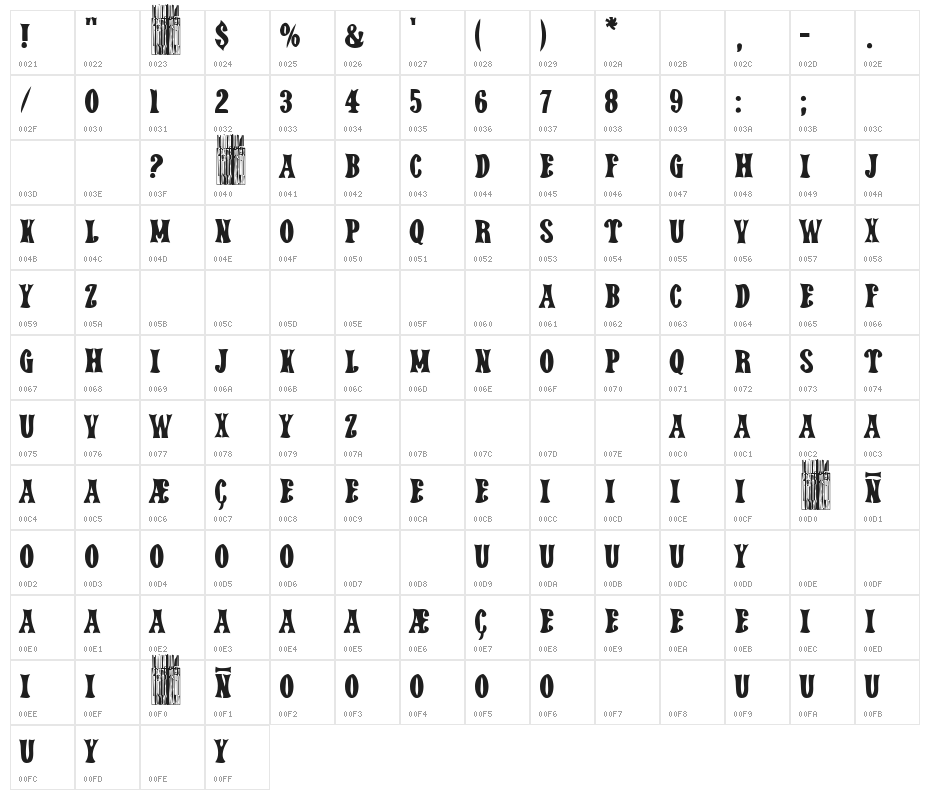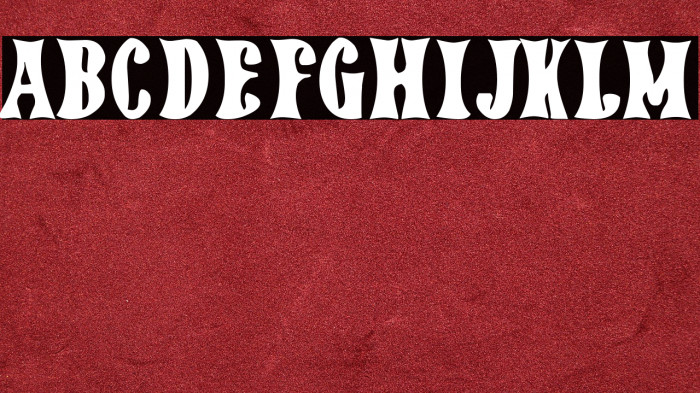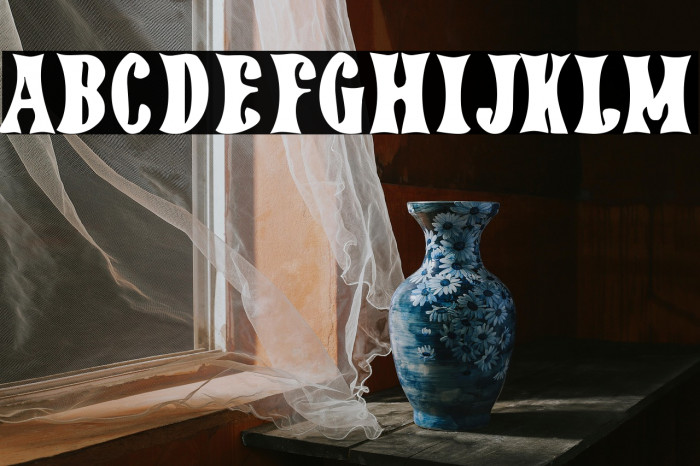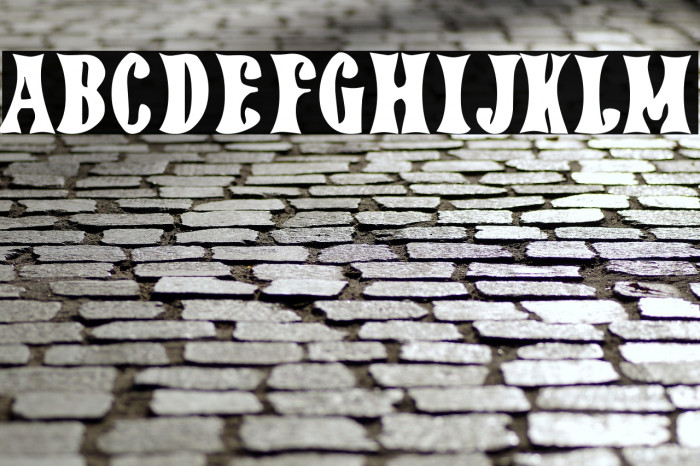
Far Away Home Font
Far Away Home Description
This font features a bold and decorative style with a whimsical flair. The characters are designed with exaggerated curves and unique serifs, giving it a playful and artistic appearance. The uppercase and lowercase letters maintain a consistent style, with the uppercase being more pronounced. Numbers and special characters are equally stylized, ensuring a cohesive look across all elements. The font's distinctiveness makes it stand out, ideal for creative and eye-catching designs.
| Proposed Projects | Ideal for posters, album covers, branding projects, and any design that requires a bold, artistic touch. |